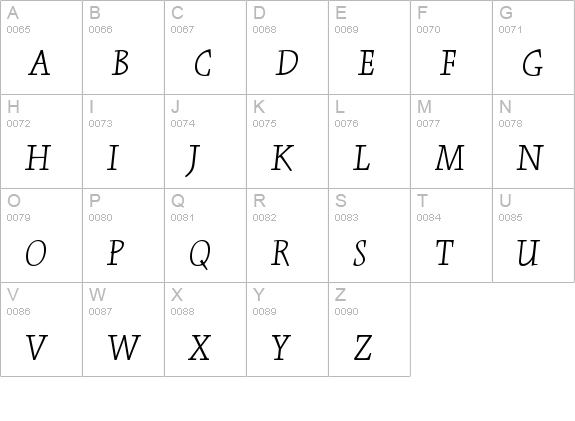
Kinesis Std Light Italic is a refined, elegant, italic variant in the Kinesis typeface family \xE2\x80\x94 well suited to elegant body text, refined sub-headings, and luxury branding.